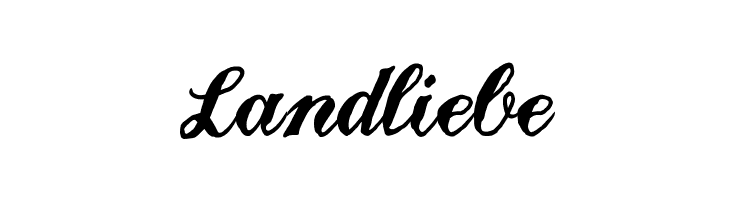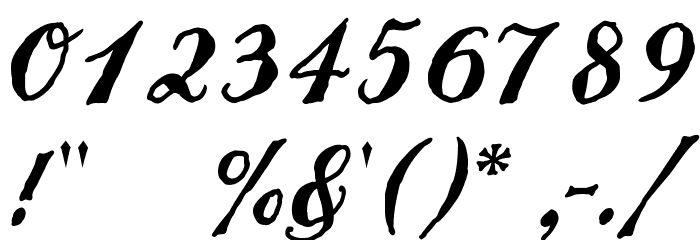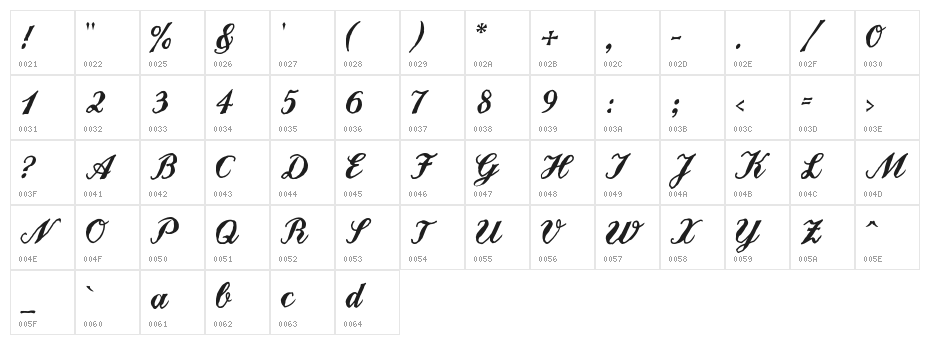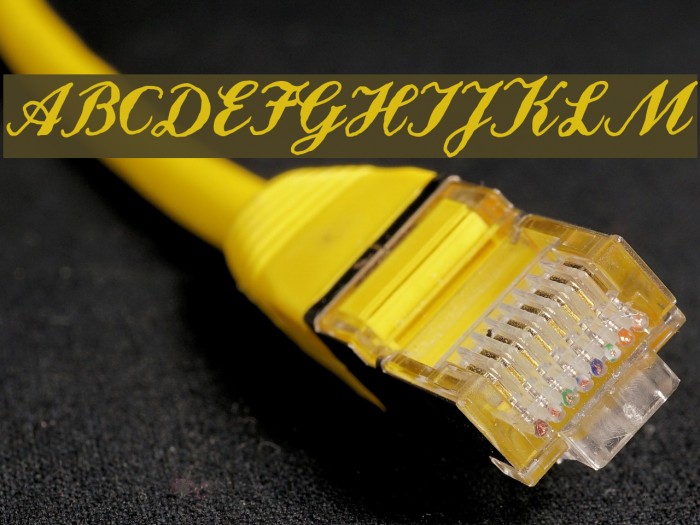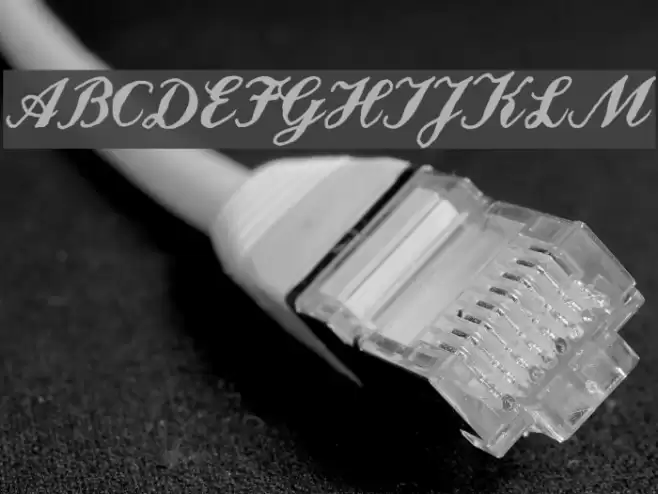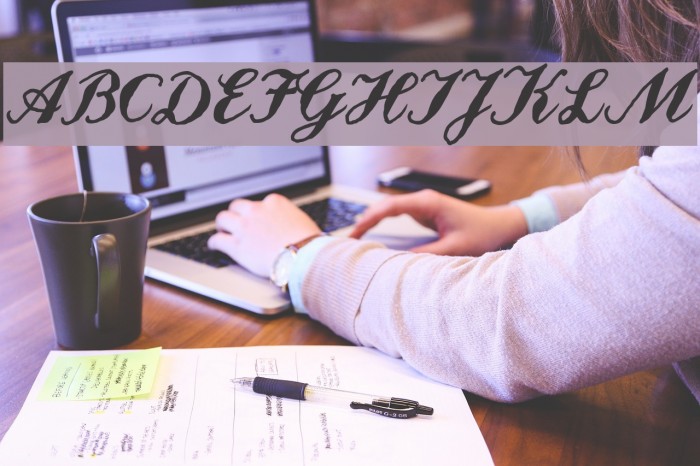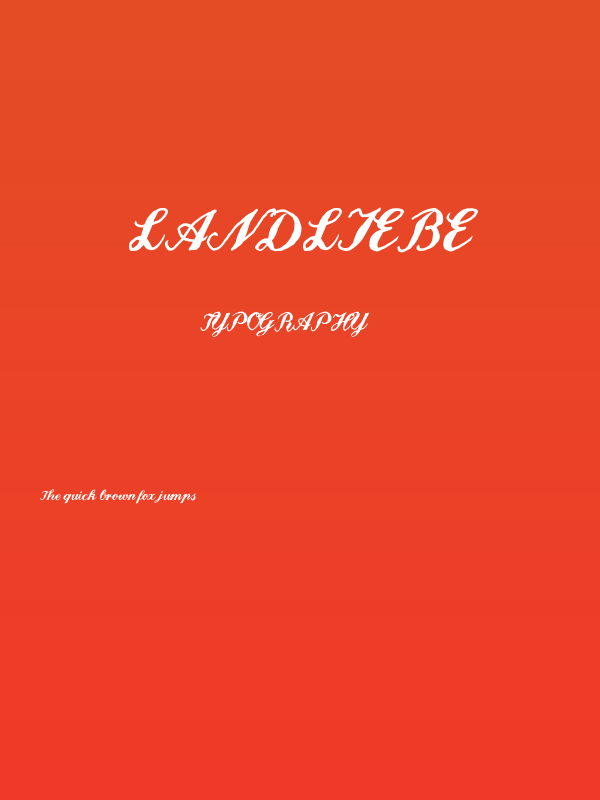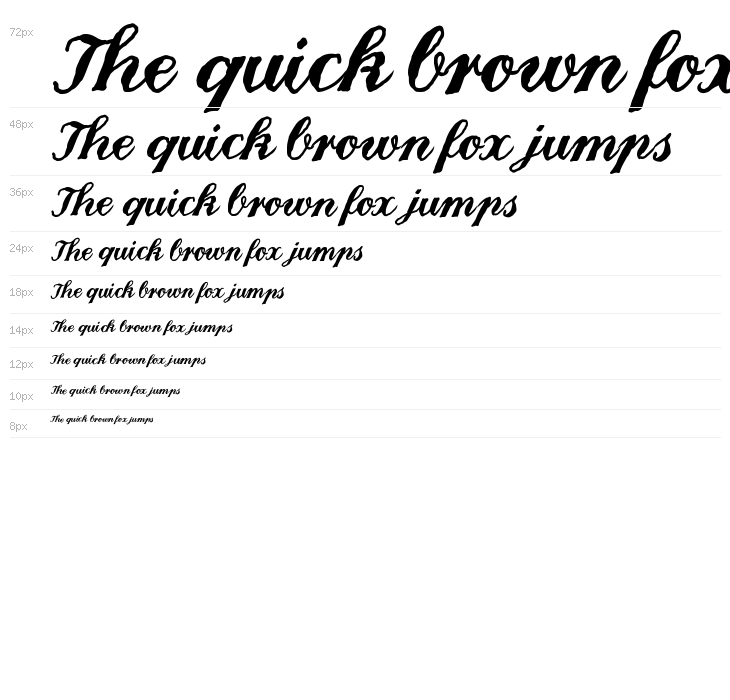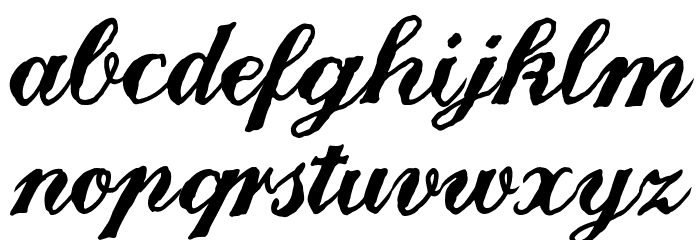
Landliebe Font
Landliebe Description
This font exudes a classic and elegant script style, characterized by its flowing, cursive letters that mimic the fluidity of handwriting. The uppercase letters are ornate, with intricate loops and flourishes, while the lowercase letters maintain a consistent slant, enhancing the overall graceful appearance. The numerals and special characters follow the same stylistic cues, ensuring a cohesive look across all glyphs. The strokes are bold, providing a strong visual impact, yet the design retains a sense of sophistication and charm. This font is ideal for projects that require a touch of elegance and tradition.
Overall StyleClassic
Use CaseLogos, Invitations, Decorative text
Proposed ProjectsWedding invitations, luxury branding, greeting cards, and elegant packaging designs.